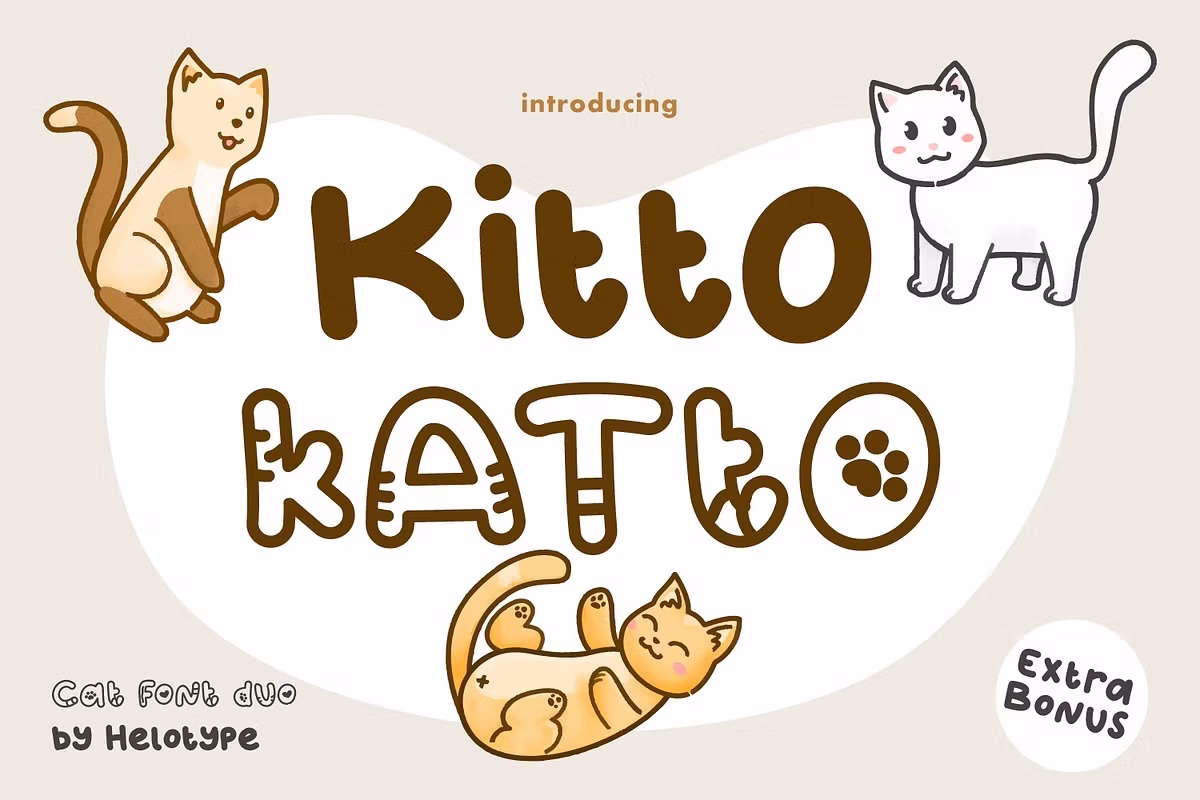
Kitto Katto Cat Theme Font Free Download is an adorable and whimsical typeface that combines fun and playfulness, making it perfect for cat-themed projects, children’s designs, pet branding, and quirky social media graphics. With its rounded, soft edges and cat-inspired details, this font brings a touch of charm and personality to any design, especially for projects related to animals or kids.
Using the Kitto Katto Cat Theme Font Free Download gives your designs a cute, lighthearted vibe. Whether you’re creating merchandise for a cat brand, designing playful pet-related content, or crafting fun invitations, this font is sure to bring smiles and add a bit of fun to your typography.